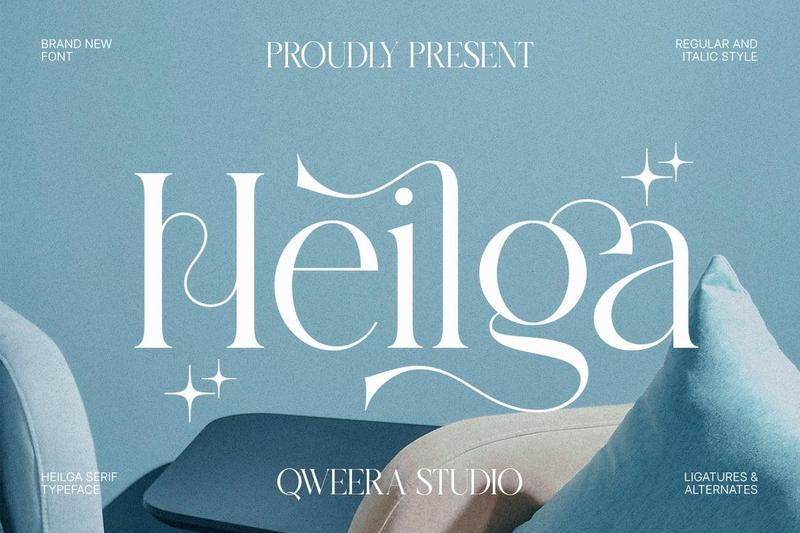
**Heilga** is an elegant modern serif typeface designed to bring soft luxury and refined sophistication to contemporary creative projects. Featuring graceful curves, stylish alternates, and beautifully crafted ligatures, this font creates a polished and premium visual presence.
Perfect for luxury branding, fashion editorials, beauty packaging, wedding invitations, boutique identities, lifestyle brands, elegant logos, and premium stationery.
Heilga blends timeless serif elegance with a fresh modern feel, making it an ideal choice for designers seeking sophisticated typography with a graceful feminine touch.
**Features**
– Uppercase & lowercase
– Alternates & ligatures
– Multilingual support
– Professional kerning
– Regular & Italic
**Perfect For**
Luxury branding, fashion editorials, beauty packaging, wedding invitations, boutique logos, lifestyle brands, premium stationery